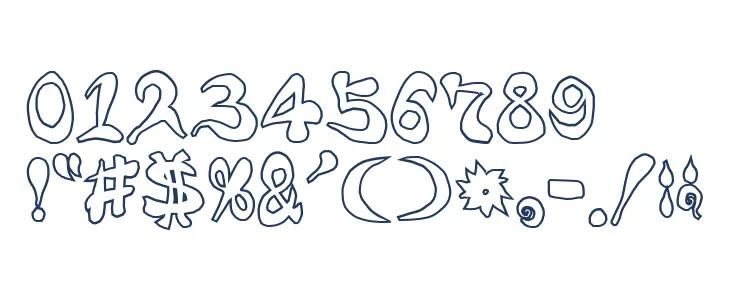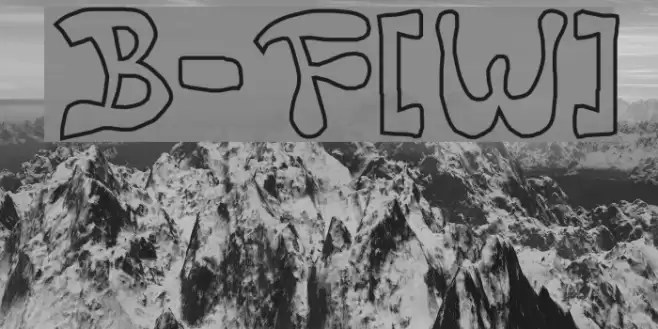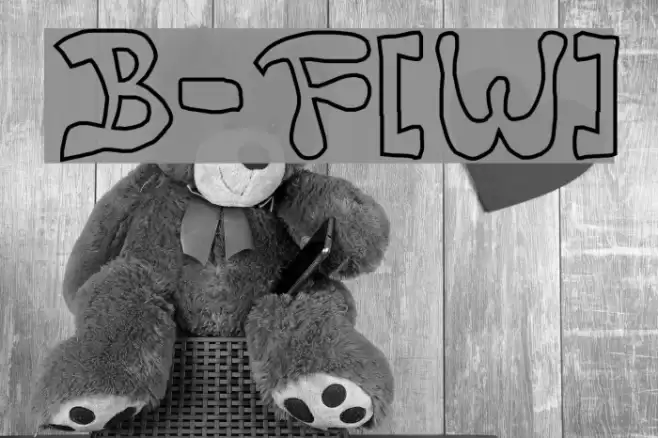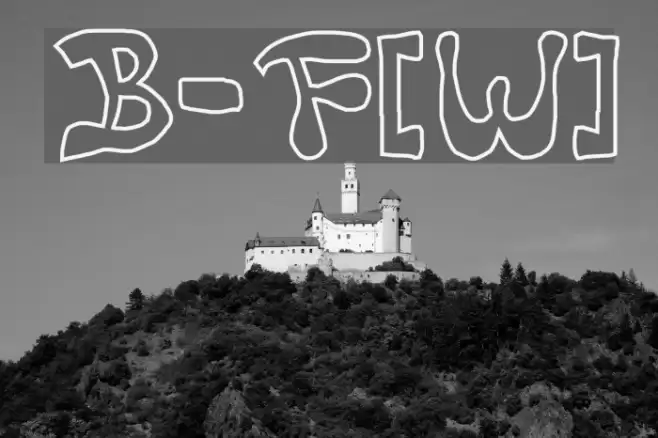
Bharatic-Font[W] Font
| Общий стиль | Whimsical, Playful, Hand-drawn |
| Рекомендуемые проекты | Ideal for children's books, playful branding, creative posters, and informal invitations. |